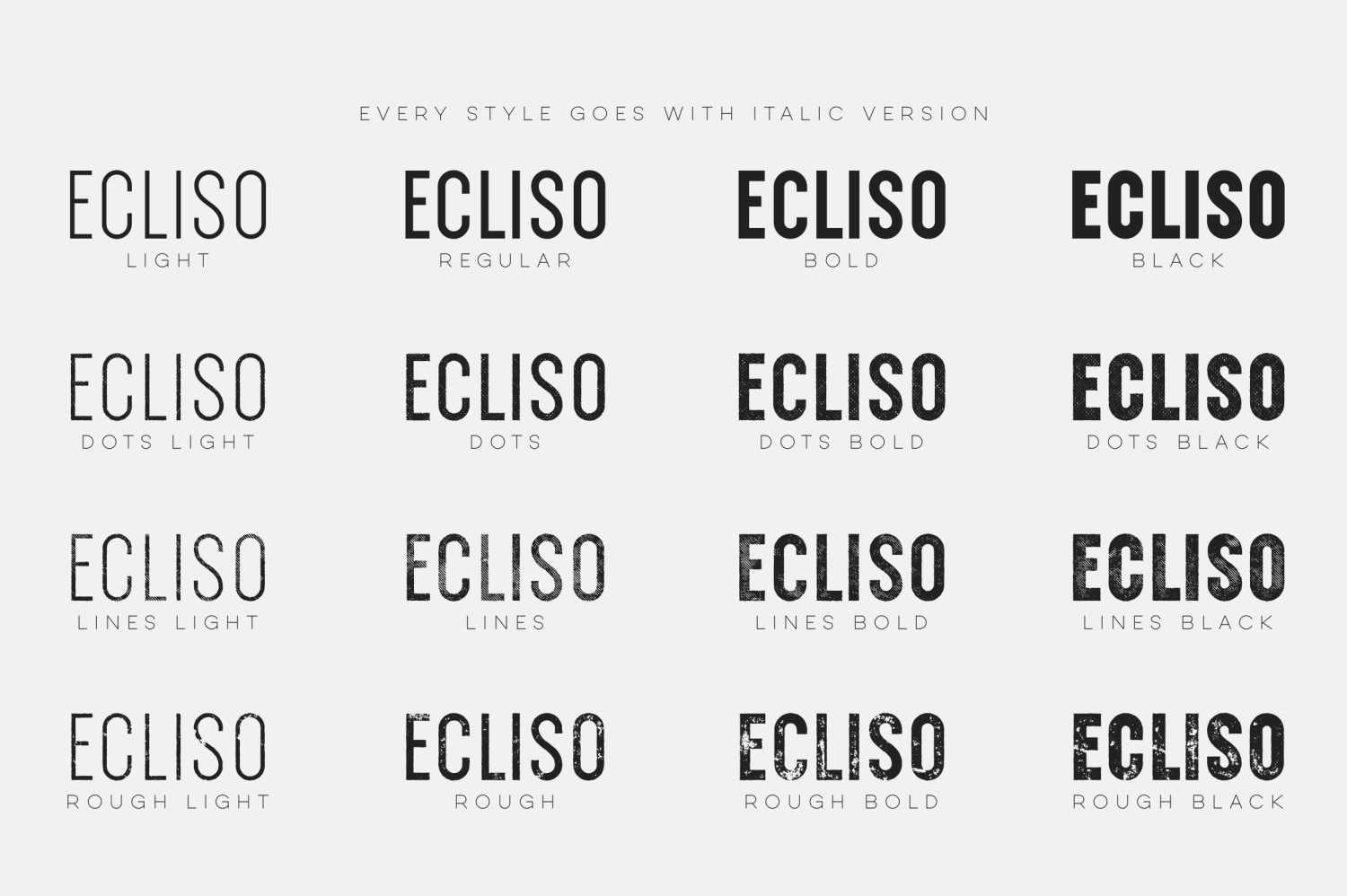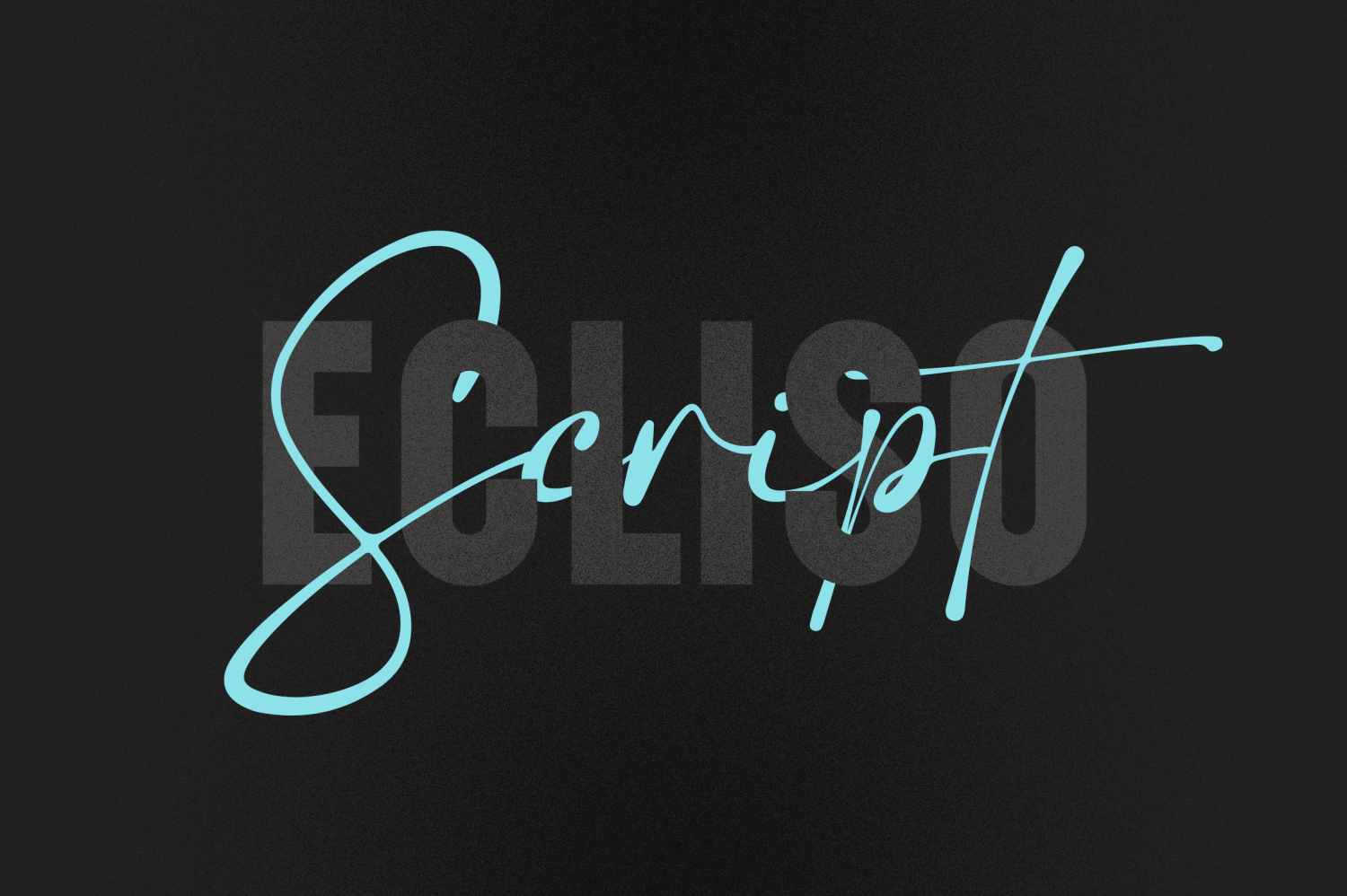
Meet Ecliso, the perfect blend of elegance and versatility designed to bring your projects to life! This dynamic font duo includes a sleek sans serif and a stylish script, crafted to complement each other flawlessly. Ecliso is your go-to choice for any…